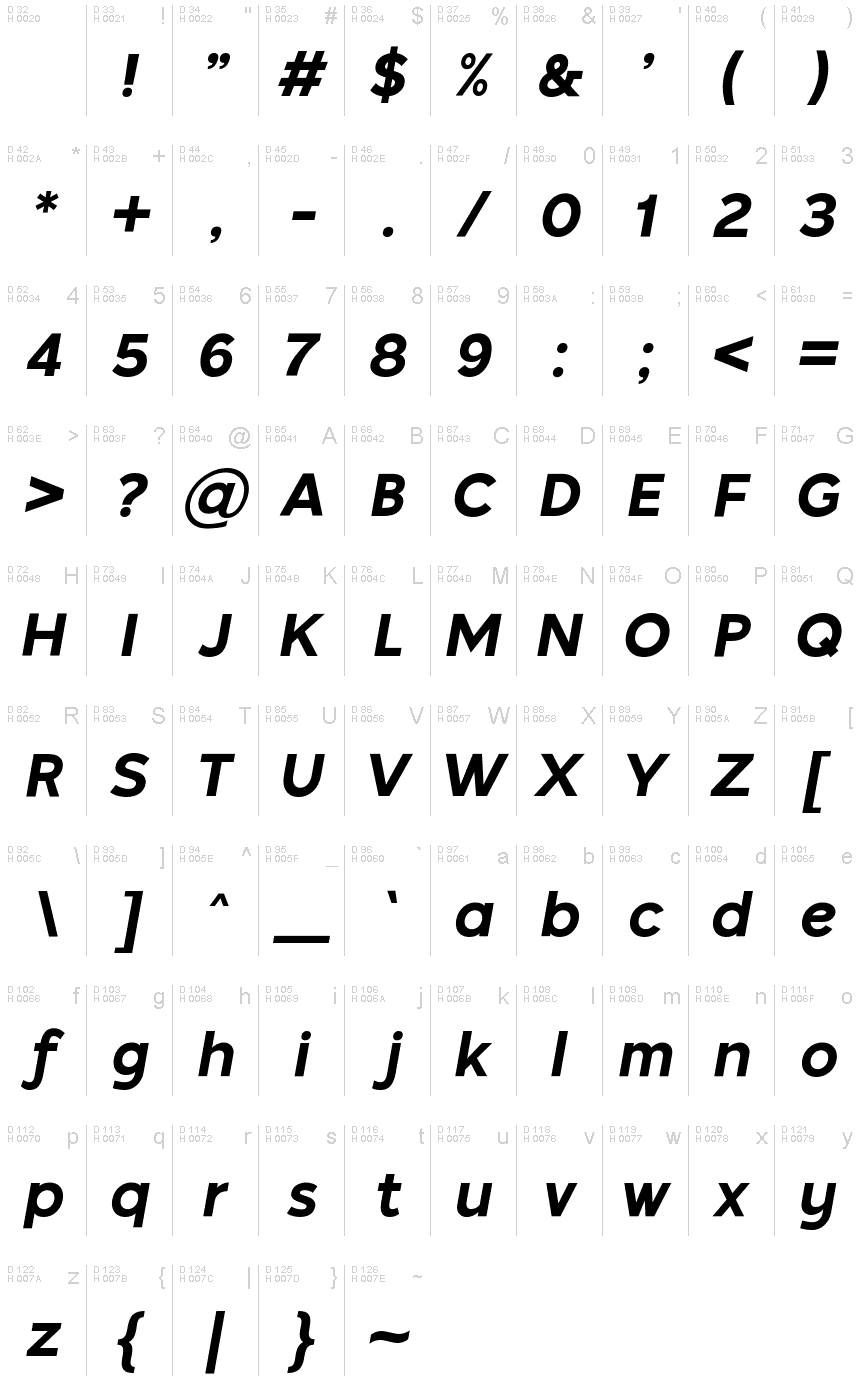
Tango Sans Italic
Introducing Tango Sans, a casual san serif font that fits any of your projects.
It is great for titles, text, logos, posters, banners etc.